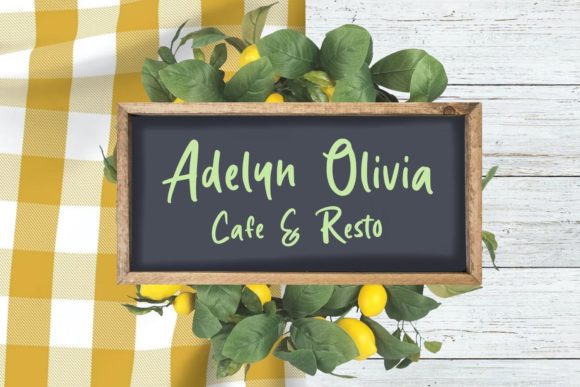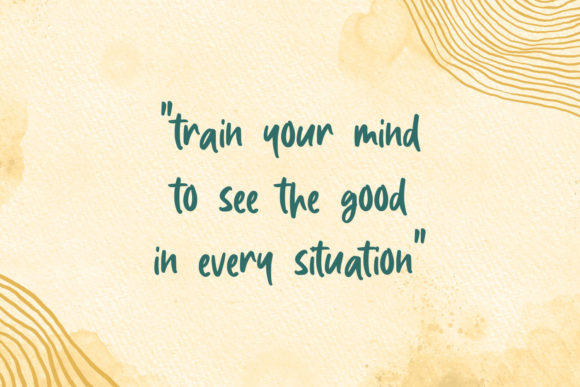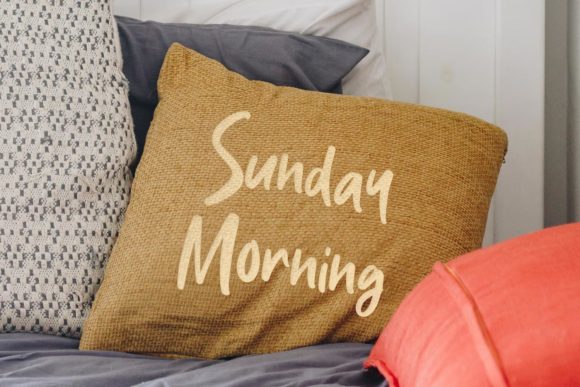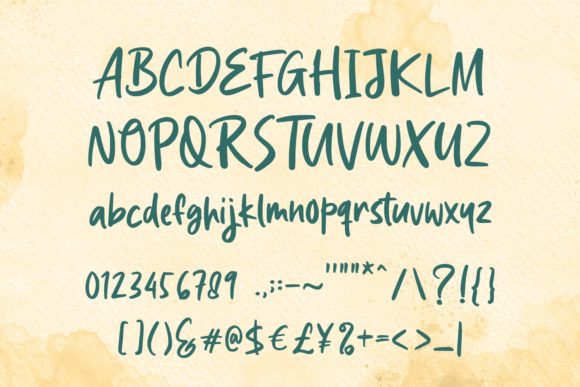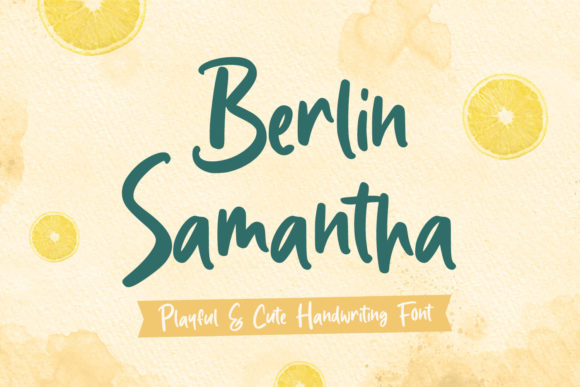
The Berlin Samantha Font: A Sweet and Trendy Script Font for Your Creative Projects
I’ll never forget the time I was working on a wedding invitation project for a client, and I just couldn’t find the perfect font to match the sweet and playful vibe they wanted. I scoured the internet, tried out dozens of fonts, but nothing seemed quite right. That was until I stumbled upon the Berlin Samantha font. ✨ It was love at first sight! The cute and joyful style of this font instantly captured the essence of the project, and I knew I had found the one.
An Honest Review of Berlin Samantha
• ✅ The playful and trendy script style that adds a touch of whimsy to any design
• ✅ The font’s versatility – perfect for wedding invitations, stationery, social media posts, and more
• ✅ The beautiful OpenType features, including glyphs and stylistic alternates, that allow for endless creative possibilities
• ✅ The font’s readability, even at smaller sizes
While Berlin Samantha is an amazing font, there are a few things to keep in mind: ⚠️ The font may not be suitable for very formal or traditional designs, as it has a distinctly playful vibe. 🤔 Some users may find the font’s script style a bit tricky to work with, especially if they’re not familiar with OpenType features.
The Story Behind Berlin Samantha
Berlin Samantha was designed by a team of creatives who wanted to create a font that captured the essence of modern playfulness. Inspired by the city’s vibrant street art scene, they crafted a font that’s both trendy and timeless. Whether you’re designing for a client or working on a personal project, Berlin Samantha is the perfect choice.
Is Berlin Samantha suitable for body text? While Berlin Samantha is a beautiful font, it’s best suited for headlines and titles. For body text, you may want to choose a font with better readability.